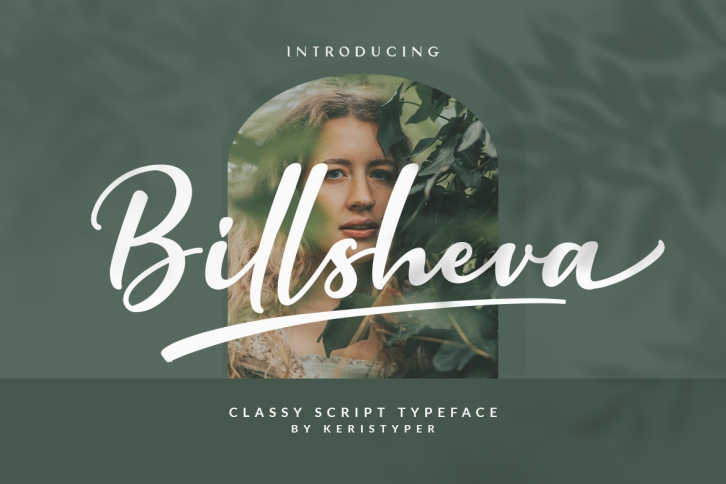
Billsheva s a modern handwritten script font with lovely touches. It will work perfectly for fashion, e-commerce brands, trend blogs, wedding boutiques or any business that wants to appear upscale and chic.